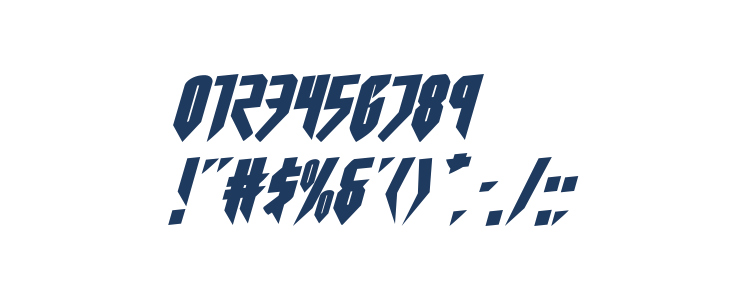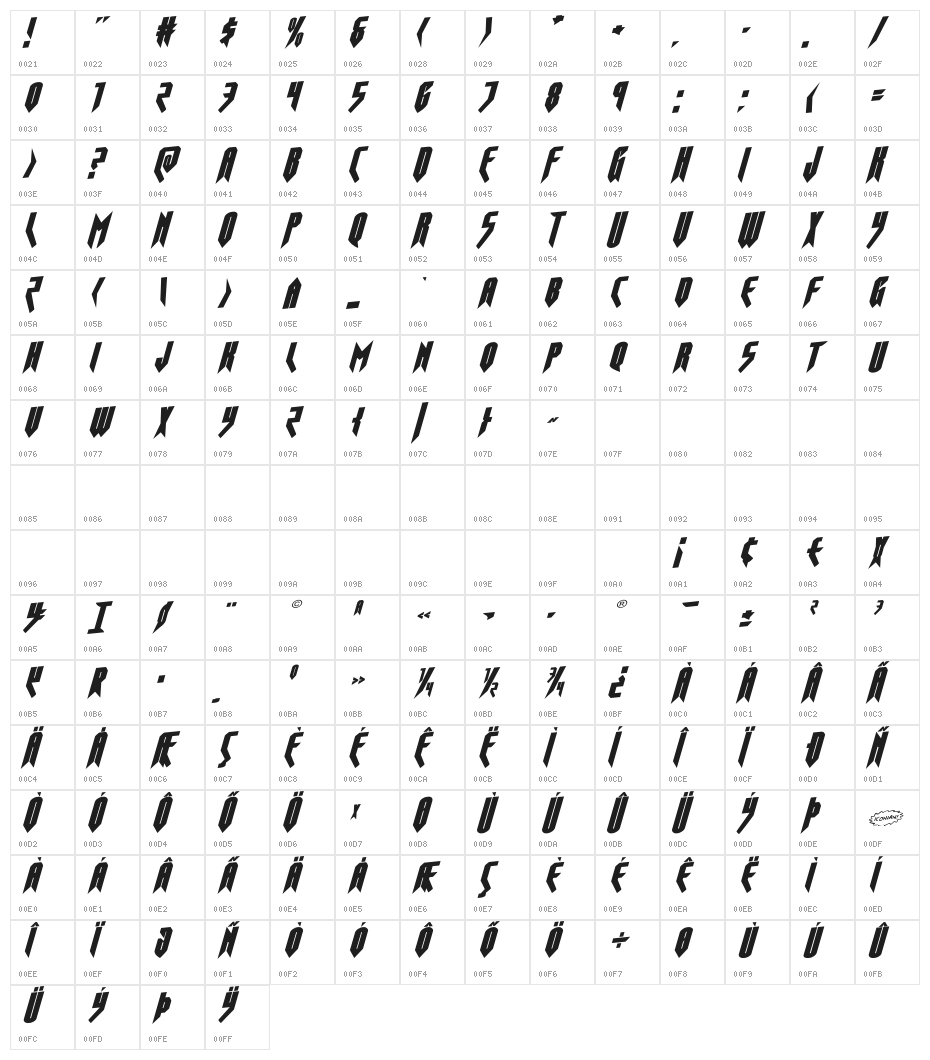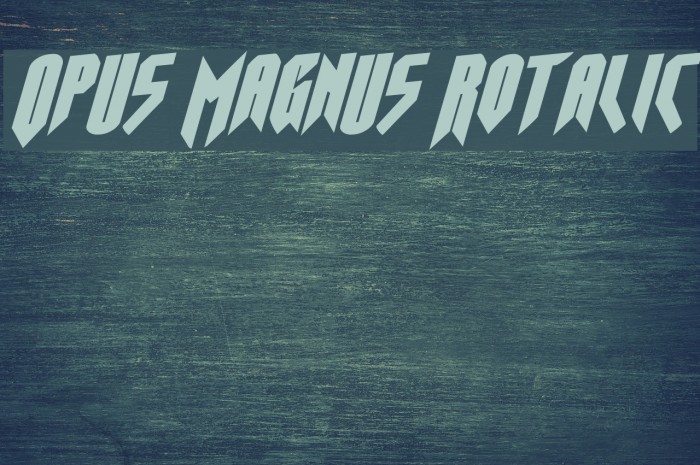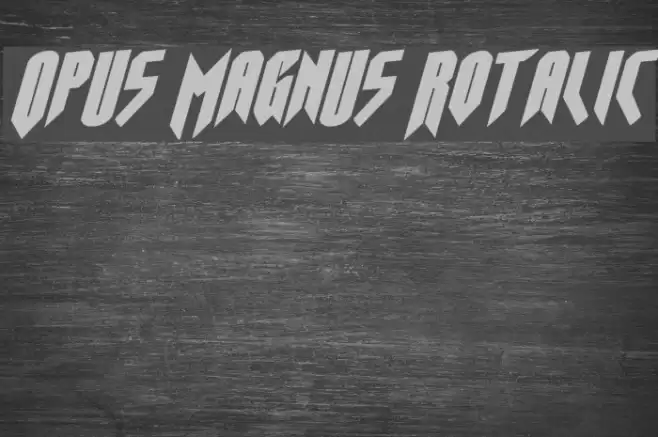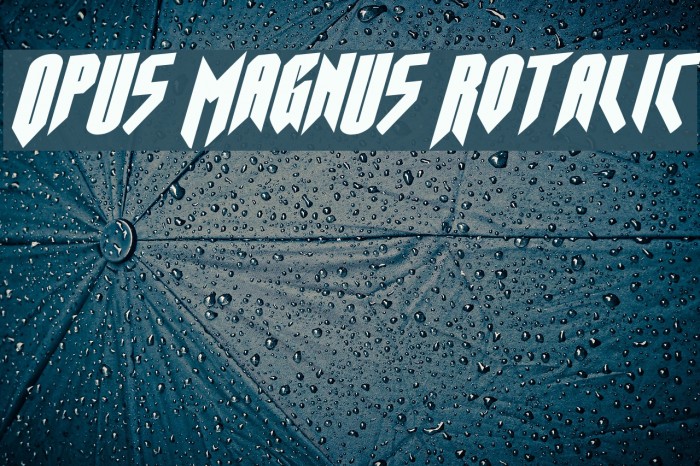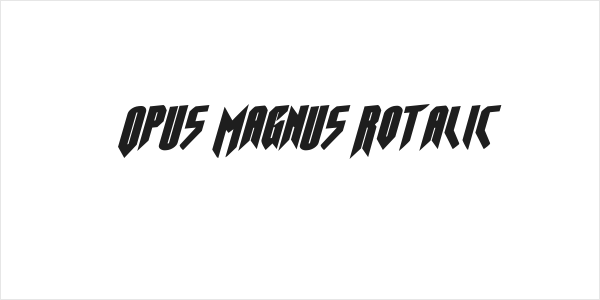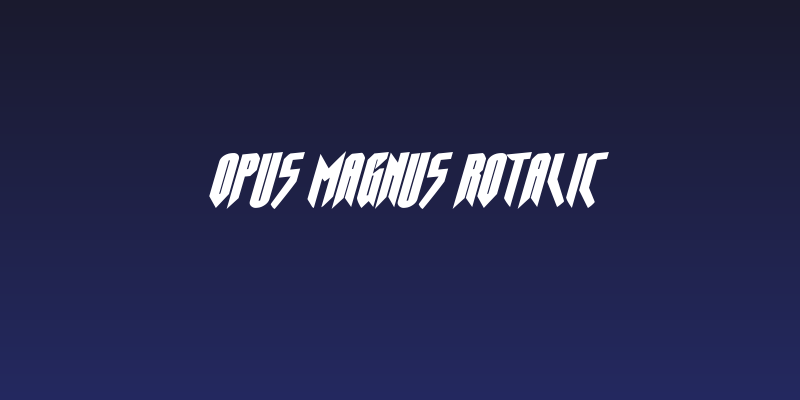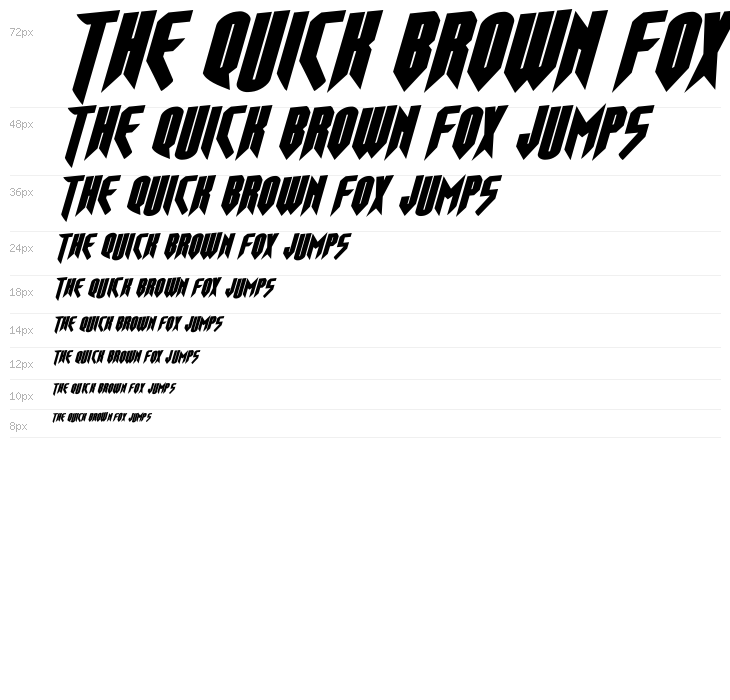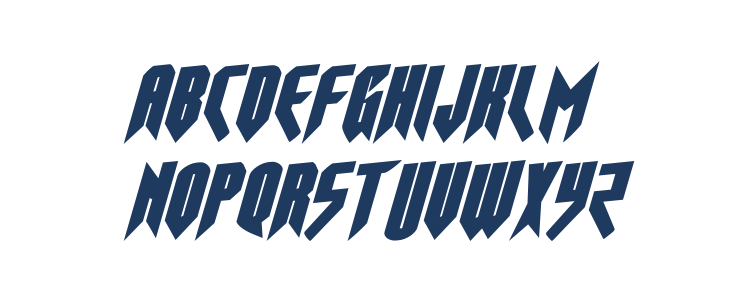
Opus Magnus Rotalic Font
Opus Magnus Rotalic Description
This font features a bold, angular design with sharp edges and a dynamic, forward-leaning stance. The characters are highly stylized, with a futuristic and aggressive appearance, making them stand out prominently. The uppercase and lowercase letters maintain a consistent style, with exaggerated angles and a sense of motion. Numbers and special characters follow the same design principles, ensuring uniformity across all glyphs. The font's unique style is both eye-catching and memorable, suitable for projects that require a strong visual impact.